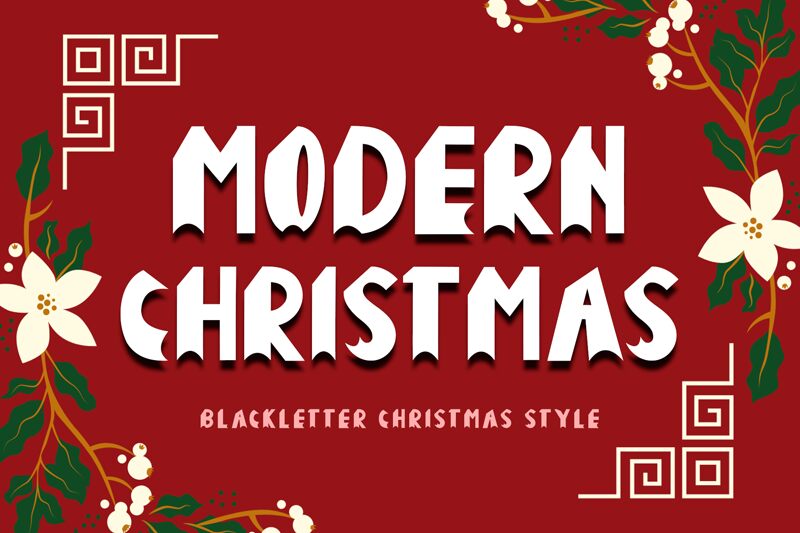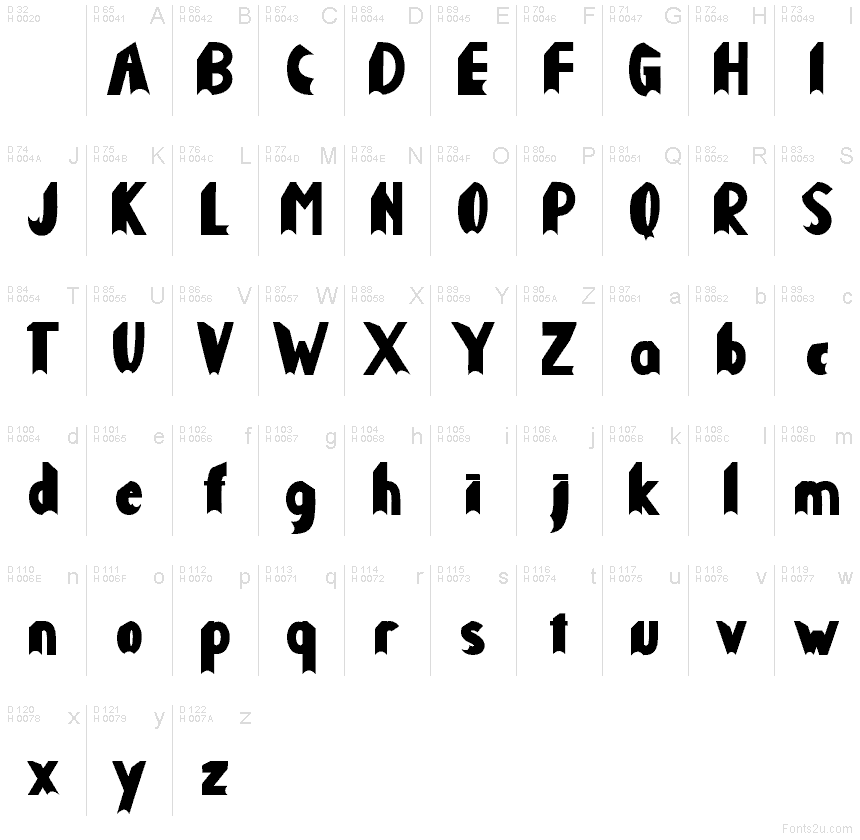
Modern Christmas
Modern Christmas font by Yoga Letter is a free Christmas decorative typeface that wraps your words in bold, festive character. The letters are thick and rounded with sharp cut-ins, like paper snowflakes carved from inky black card, giving every word a cozy yet modern holiday feel. Its quirky rhythm and chunky shapes read clearly at a glance, even when layered over patterns, photos, or sparkling textures.
Using Modern Christmas, your headlines instantly feel like a holiday event: greeting cards, party invitations, gift tags, seasonal posters, social media graphics, and holiday product packaging all gain a strong, joyful voice. This free font shines when used large, with plenty of breathing room around it. For supporting text, pair it with a clean sans serif in a lighter weight to keep the focus on its playful, wintry curves.